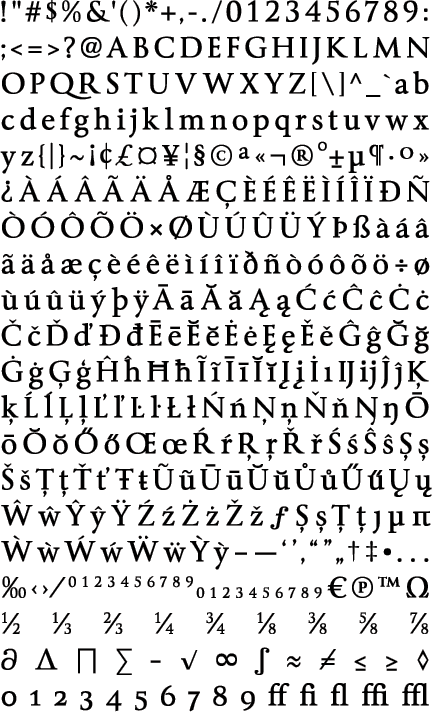
byington
Inspired by the ancient carvings chiseled into Trajan’s column in Rome, Byington pays homage to Trajan’s venerable lines but strips away the subtle nuances usually associated with the classic design. Fortified to withstand the requirements of video and other low resolution applications, Byington’s strength lies in its beefier serifs and speedier transitional curves. And what’s this? Recent excavations revealed a lowercase, ten meters below the column’s foundation. Byington’s lowercase is interfused with Sabon and Garamond, mirroring the pared down simplicity of the capitals.